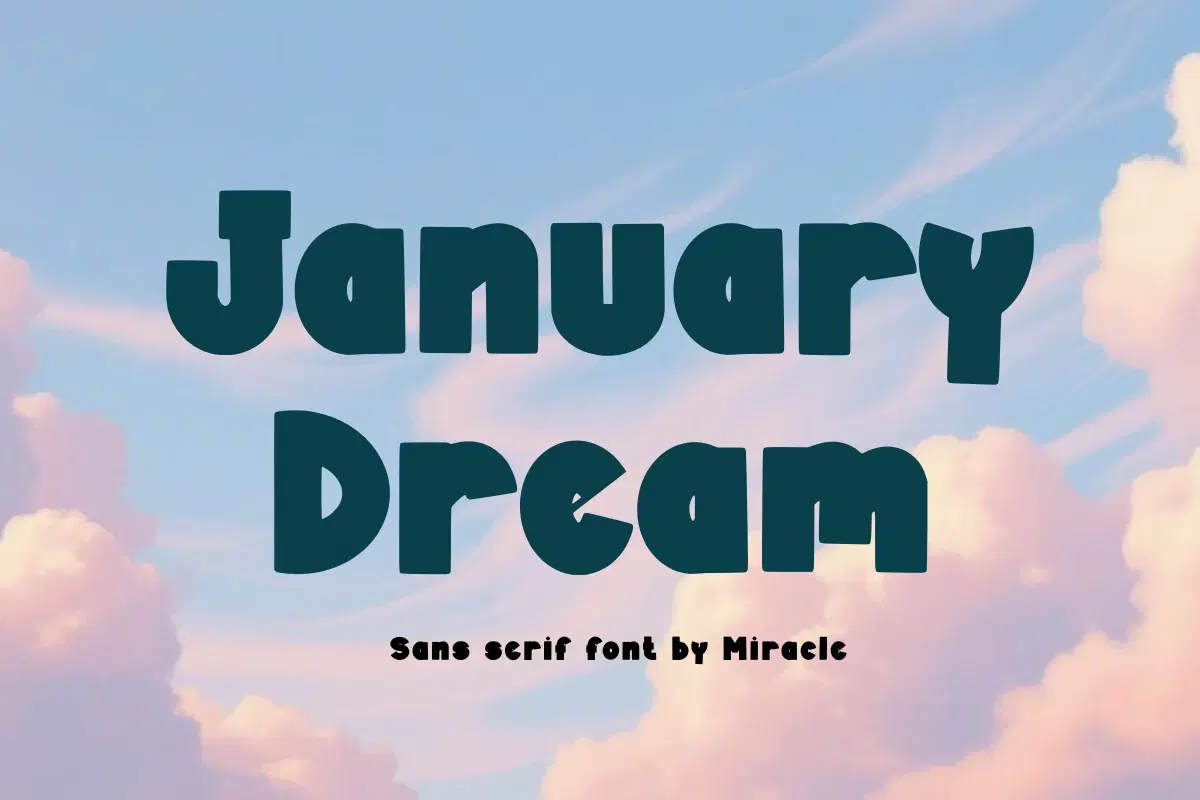
Step into a world of imagination with January Dream, a striking and expressive sans serif font by Miracle. Featuring thick, bold letterforms with unique geometric cuts, this font is designed to make a powerful statement while maintaining a soft, whimsical vibe. It is the perfect choice for creators who want to combine modern edge with a dreamy, ethereal aesthetic.
January Dream is built for impact, offering a heavy weight that commands attention instantly. Its distinctive character shapes make it ideal for high-end display use, ensuring your headlines and branding projects stand out with a truly "one-of-a-kind" feel.